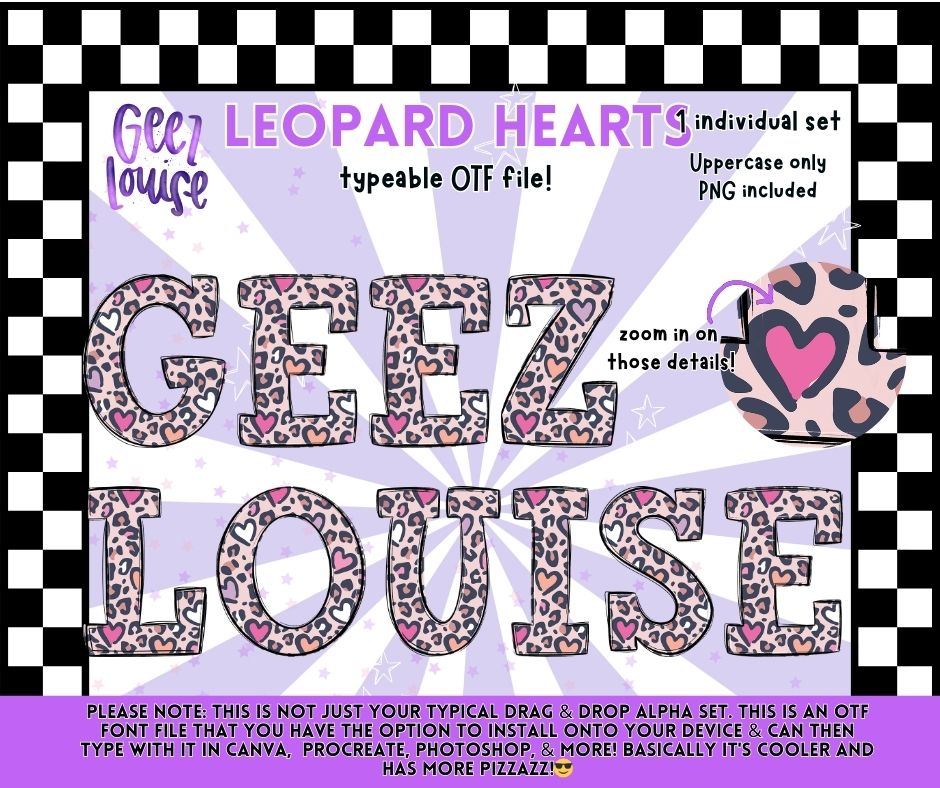
Leopard Hearts Alpha Set | Typeable OTF Font + PNG Letters | Valentine Leopard Alphabet
Meet the fierce + flirty lettering set your Valentine designs have been waiting for — Leopard Hearts! 🐆💗
Perfect for Valentine’s Day, leopard-themed projects, boutique graphics, spirit wear, and all things bold + cute.
• Pink + purple leopard + heart pattern
Go wild with your Valentine designs — but make it cute. 💖🐆✨